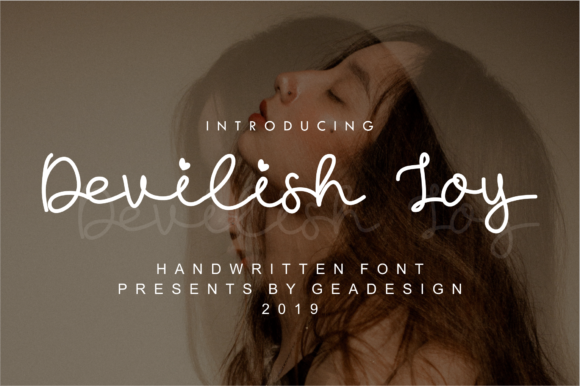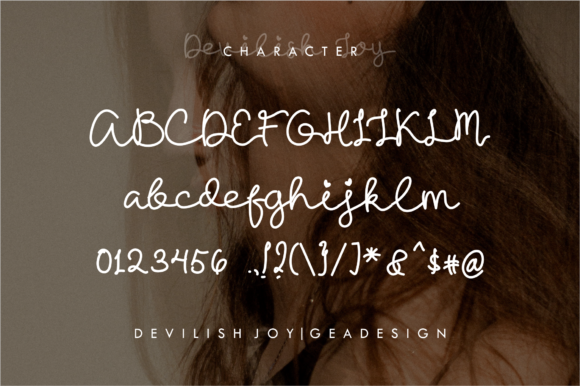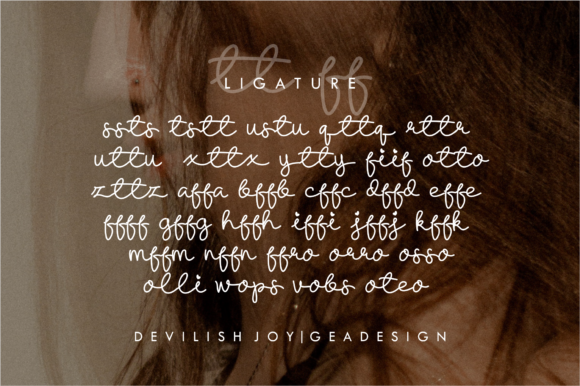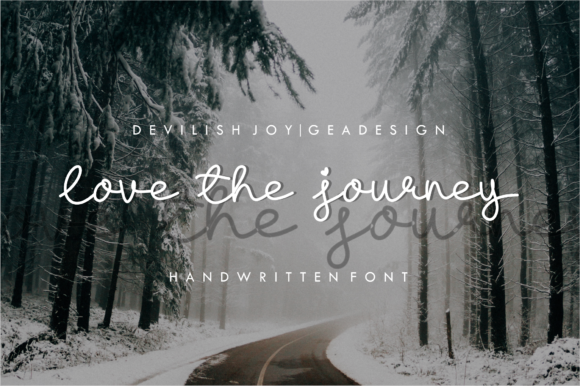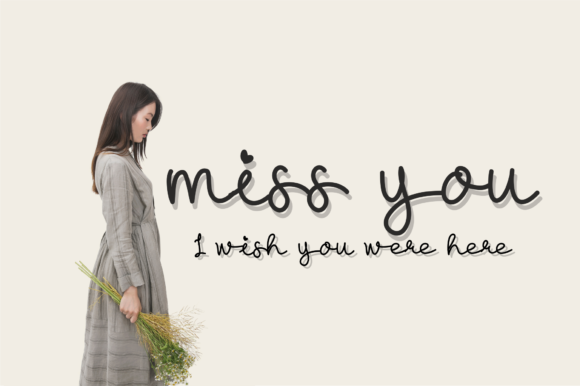
Devilish Joy Font
About Devilish Joy Font
Devilish Joy is a lovable handwritten font. Full of charm, it will elevate any design project with its sweet and delicious style!